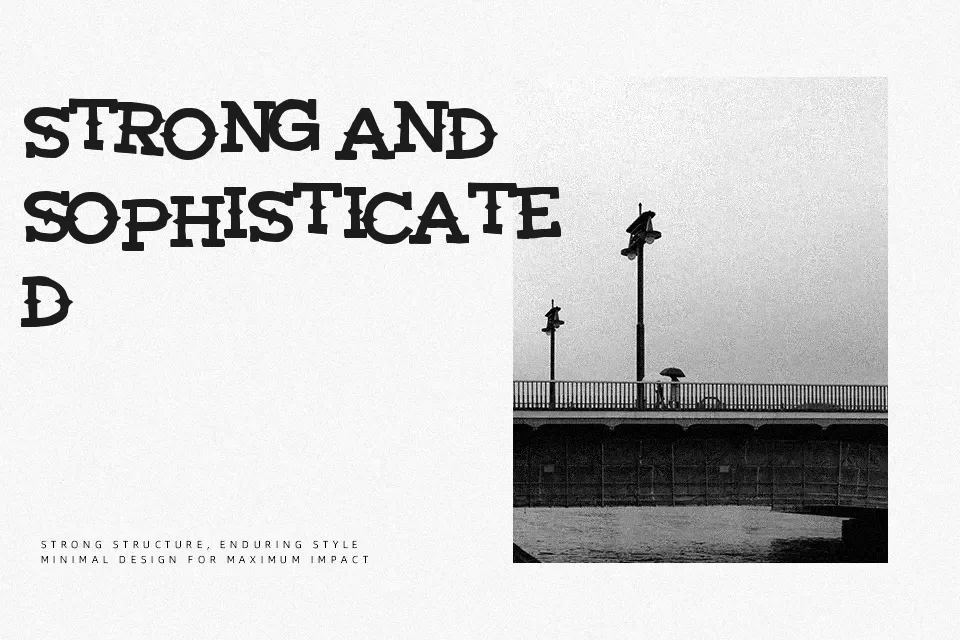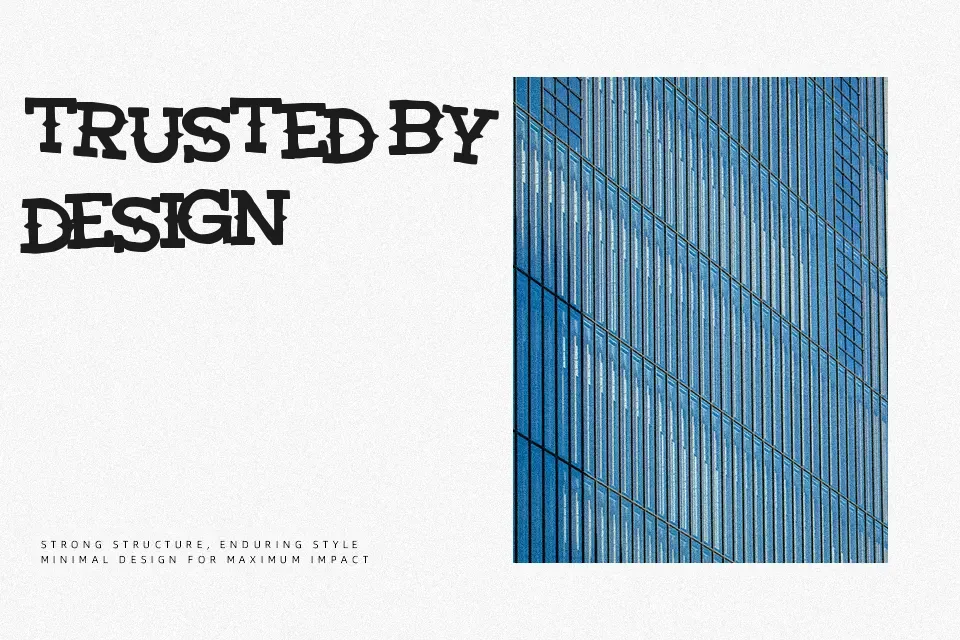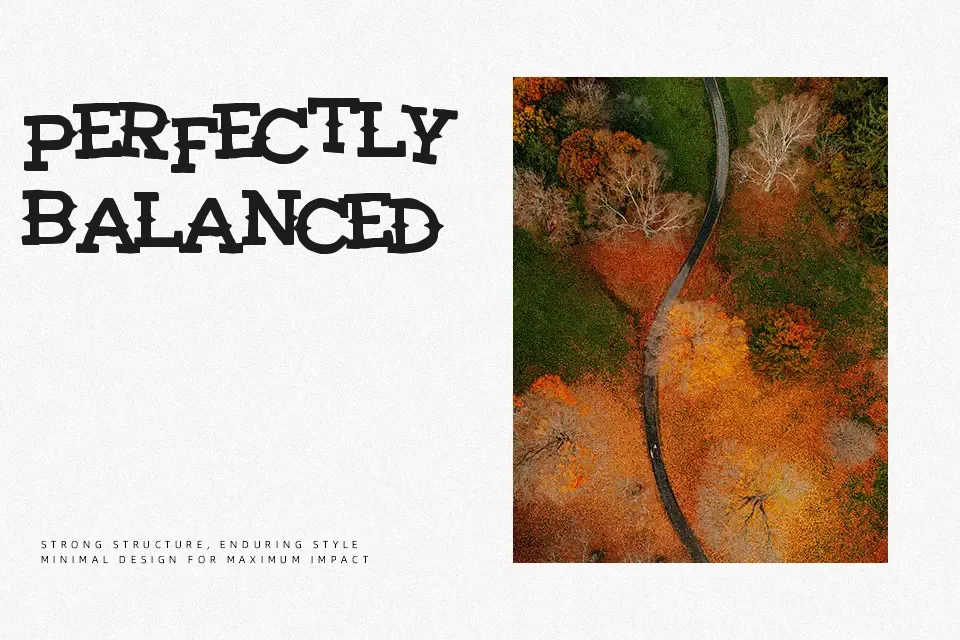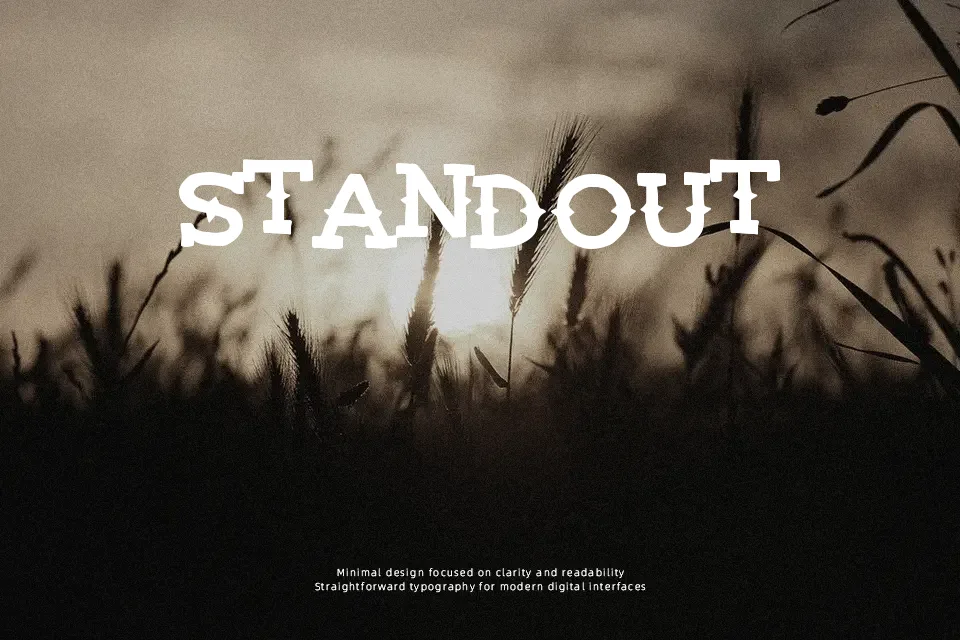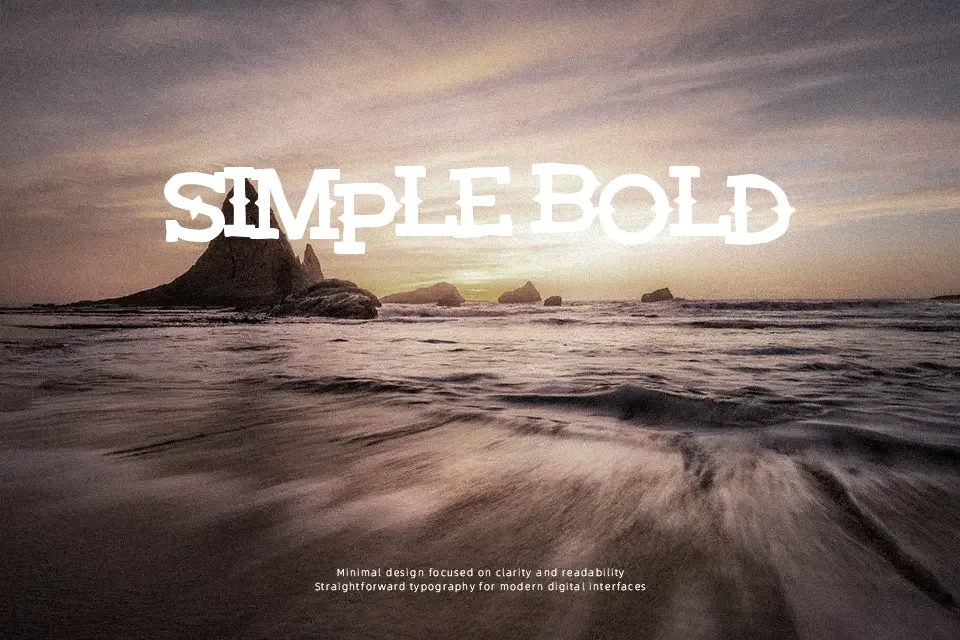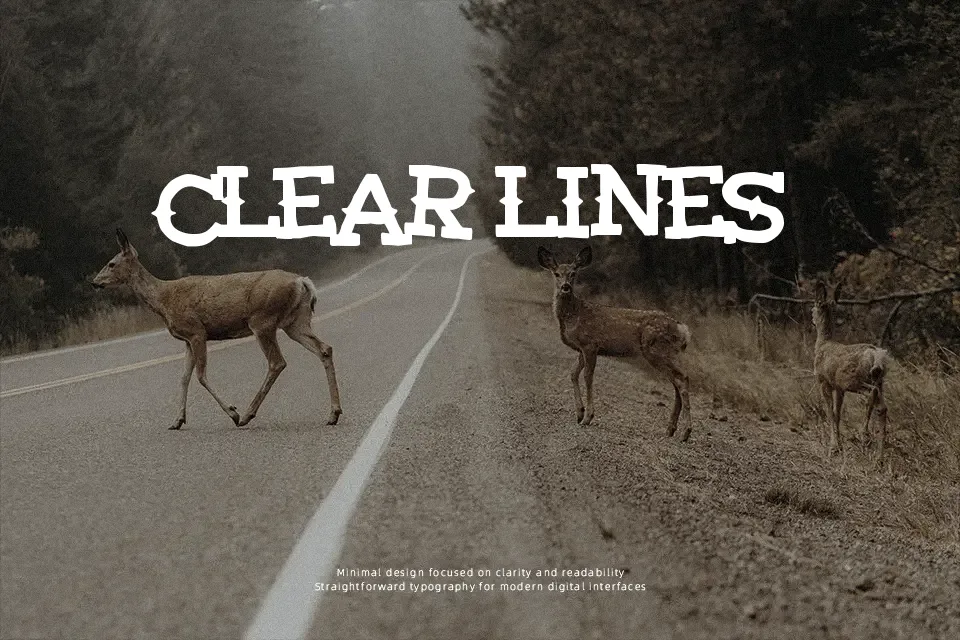
Territorial Font
Territorial Font introduces a bold, angular silhouette rooted in traditional frontier woodblock typography with sturdy vertical stems and pronounced decorative spurs along the waistline. The design features substantial slab terminals, condensed horizontal proportions, and tightly tracked character spacing that generate immediate visual weight. While the letterforms maintain crisp distinction and authoritative presence in large headlines, the dense stroke construction and sharp interior counters reduce reading comfort across extended passages. As a result, the typeface performs at its best in striking titling contexts rather than continuous text layouts.
Best For: western themed posters,craft beer labels,saloon style signage,apparel chest graphics
Not Ideal For: continuous body text,mobile interface labels,long editorial paragraphs,dense corporate spreadsheets